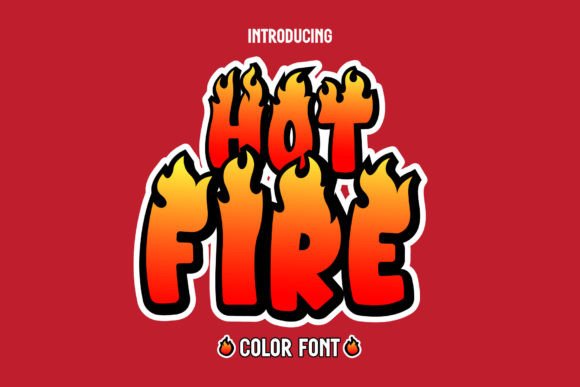
Introducing Hot Fire Font, the perfect addition to your font library. Created by Fox7, this colorful font is the ultimate choice for school projects, creative designs, and any other project where you want to make a bold statement. Hot Fire is a color font designed in the form of burning flames that are sure to catch the eye of anyone who sees it.
One of the best things about Hot Fire is its versatility. No matter what topic you're working on, this font will add a touch of excitement and drama to your designs. It's perfect for headlines, logos, posters, and any other design element you can think of. With its bold and fiery appearance, Hot Fire is sure to make your creations stand out from the crowd.
In conclusion, Hot Fire Font is a must-have for anyone looking to add a touch of excitement and drama to their designs. With its eye-catching appearance, easy-to-use design, and compatibility with popular software, Hot Fire is the ultimate choice for anyone looking for the best font for school projects or any other design project.